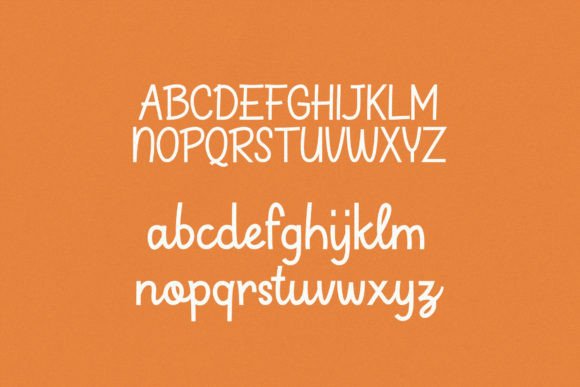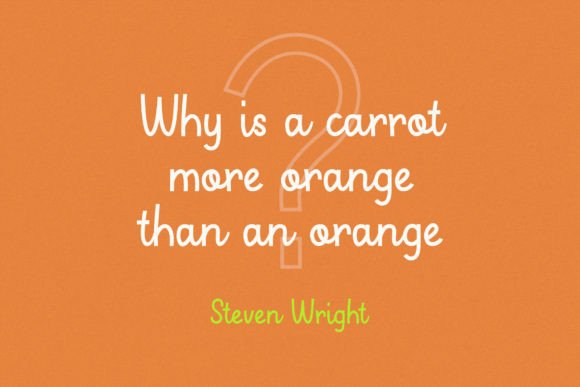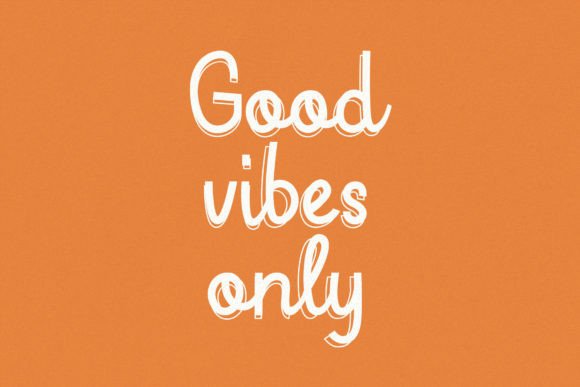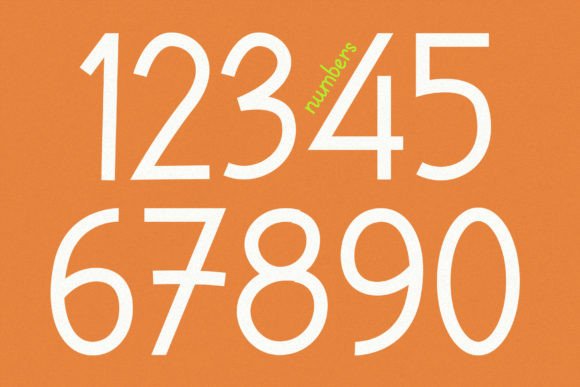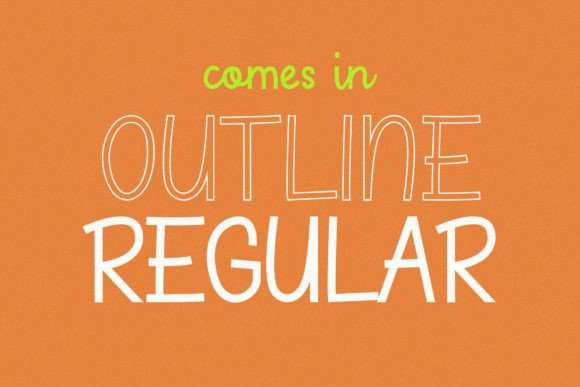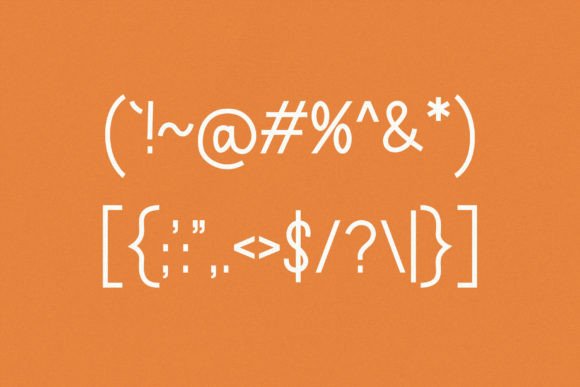
The Perfect Pick for Your Next Design Project
Have you ever stared at a blank page, searching for the perfect font to bring your design to life? I know I have. The struggle is real, but what if I told you there’s a font that’s as sweet as a crunchy carrot stick on a sunny day? The Carrot Font is here to save the day, and it’s perfect for projects that need a dash of whimsy and charm.
This adorable handwritten font is designed to evoke a sense of playfulness and friendliness, making it a great choice for children’s books, branding, and web design. The Carrot Font is more than just a pretty face – it’s a valuable tool for designers who want to add a personal touch to their work. With its organic feel and versatility, this font is sure to become a staple in your design toolkit.
Carrot Font Key Features
- Unique Characteristics: Carrot Font features a distinctive, hand-drawn style with bold lines, playful flourishes, and a warm, inviting tone, perfect for adding a touch of whimsy to designs.
- Font Family: Carrot Font is part of a comprehensive font family, offering a range of weights, from Light to Bold, and a variety of styles, including Regular, Italic, and Bold Italic, providing flexibility for designers.
Carrot Font Review
I was excited to dive into the Carrot Font, and overall, it’s a solid choice for those looking for a playful, energetic feel. ✨ Here are some of the things that stood out to me:
- Its quirky, whimsical style makes it perfect for adding a touch of personality to your designs.
- The font’s bold and cheerful vibe is sure to grab attention and leave a lasting impression.
- It’s highly legible, even at smaller font sizes, making it a great option for body text or headlines.
- Carrot Font supports a wide range of languages, making it a great choice for global branding and marketing efforts.
- The font may not be the best choice for formal or professional designs, as its playful style may come across as unpolished or immature.
- It may not be the most versatile font, as its quirky style may not lend itself to more serious or technical applications.
Overall, I think the Carrot Font is a great choice for designers who want to add a bit of whimsy and personality to their designs. While it may not be the best fit for every project, it’s definitely worth considering for designs that call for a fun and energetic feel.
Tips for Getting the Most Out of the Carrot Font
Use the Carrot Font for creating playful and eye-catching designs. It’s particularly suitable for food-related designs, children’s products, and advertisements. Experiment with different font sizes and colors to create a visually appealing design.
The Carrot Font is commonly used for:
- Food-related designs (e.g., restaurant logos, food packaging)
- Children’s products (e.g., toy boxes, educational materials)
- Advertisements (e.g., social media posts, billboards)